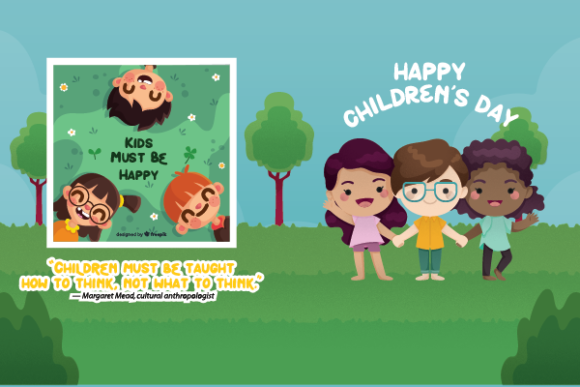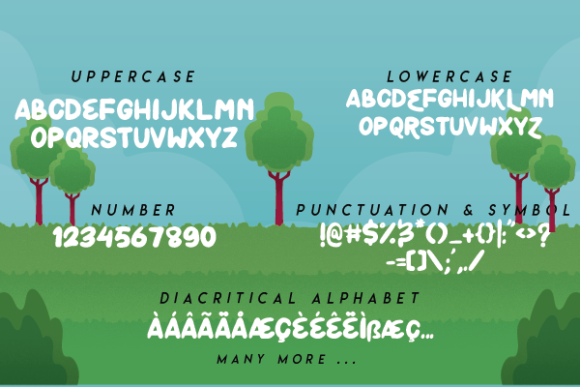
Introducing Bolobolo Font: The Ultimate Choice for Playful Designs
Are you tired of using the same old fonts for your designs? Look no further! Bolobolo Font is here to add a splash of color and playfulness to your projects. This cute and colorful display font is perfect for children’s activities, school projects, and any design that needs a touch of authenticity.
What Makes Bolobolo Font So Special?
Bolobolo Font embodies the spirit of playfulness and fun, making it an ideal choice for designers and crafters who work with children or want to create engaging content for kids. Its chunky lettered design makes it easy to read and recognize, even for young children. The font’s playful and carefree vibe is sure to bring a smile to anyone’s face.
Perfect for Children’s Activities and School Projects
Bolobolo Font is specifically designed for use in children’s activities and school projects. Whether you’re creating worksheets, posters, or presentations, this font is sure to make your designs come alive. Its colorful and playful nature makes it perfect for:
- Children’s party invitations and decorations
- School project posters and presentations
- Activity sheets and worksheets for kids
- Crafting and DIY projects for children
Adding a Touch of Authenticity to Your Designs
Bolobolo Font is not just a playful font; it’s also a great way to add a touch of authenticity to your designs. Its chunky lettered design gives it a hand-drawn feel, making it perfect for:
- Creating handmade-style crafts and DIY projects
- Designing social media graphics and posts that need a personal touch
- Developing brand identities that require a playful and approachable feel
Tips for Using Bolobolo Font in Your Designs
Here are some tips for getting the most out of Bolobolo Font in your designs:
- Use it as a display font to add emphasis and create visual interest
- Pair it with other fonts to create a unique and playful combination
- Experiment with different colors and textures to enhance the font’s playful nature
- Use it consistently throughout your design to create a cohesive look
Why Designers and Crafters Love Bolobolo Font
Designers and crafters love Bolobolo Font for its unique combination of playfulness and authenticity. Here are some reasons why:
- It’s easy to read and recognize, even for young children
- It’s versatile and can be used in a variety of design projects
- It’s perfect for creating engaging and interactive content for kids
- It’s a great way to add a personal touch to your designs
Bolobolo Font is a unique and playful display font that’s perfect for designers and crafters who want to add a touch of fun and authenticity to their projects. Its chunky lettered design and colorful nature make it ideal for children’s activities and school projects. With its versatility and ease of use, Bolobolo Font is sure to become a favorite in your design toolkit.